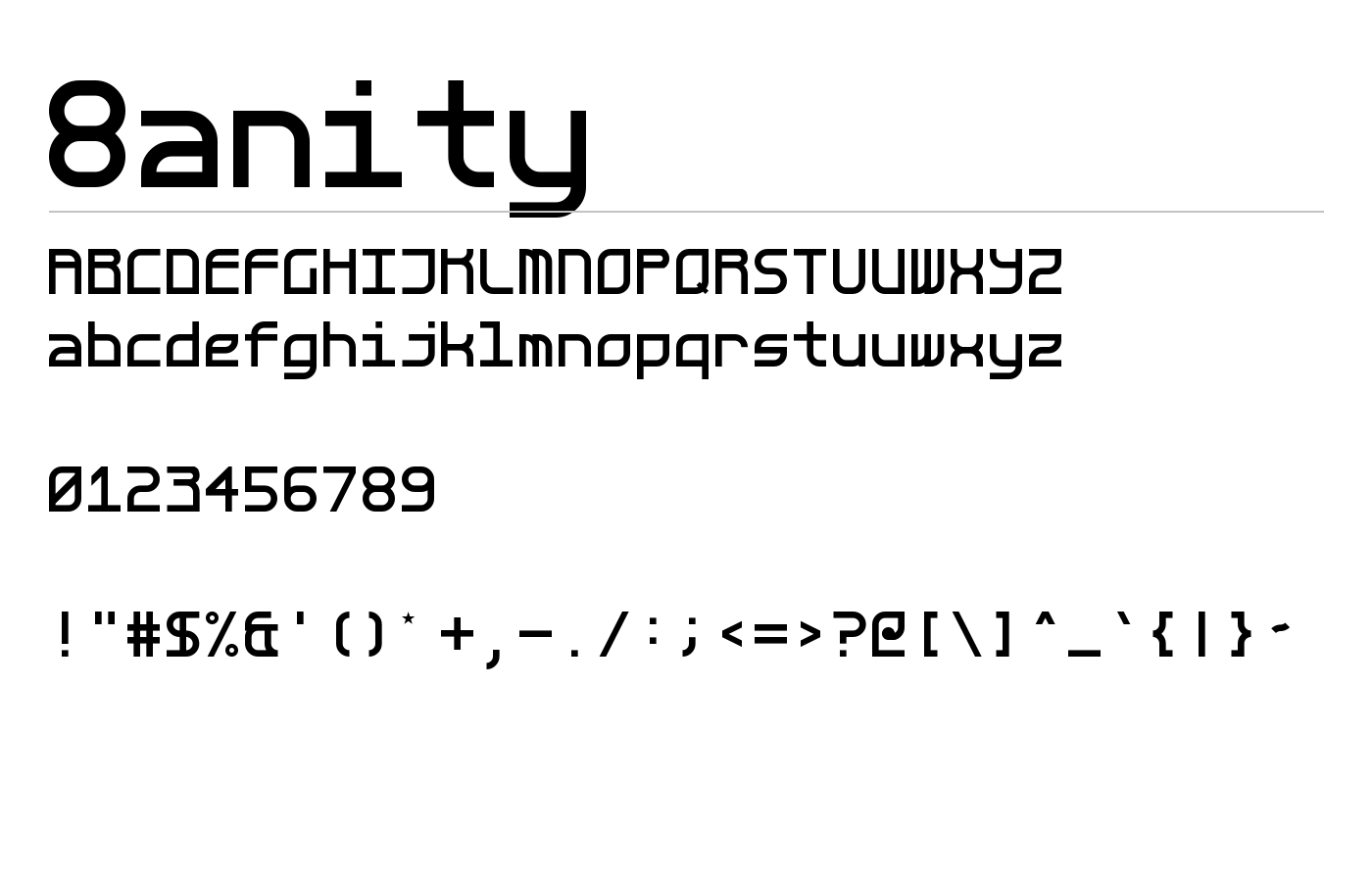
8anity is a modern, geometric sans-serif font with a distinctively technological and futuristic vibe. Its clean, mono-weight strokes and squared letterforms create a precise, compact look, ideal for digital interfaces, tech branding, and headlines that demand a strong, contemporary presence. This font works well in contexts where clarity and a cutting-edge aesthetic are key, such as websites, user interfaces, and innovative product packaging.
8anity Font
About 8anity Font
| Font family | 8anity Font |
| Languages supported | Latin, Cyrillic, Symbols, Greek |
| Designer | Logan2020 |